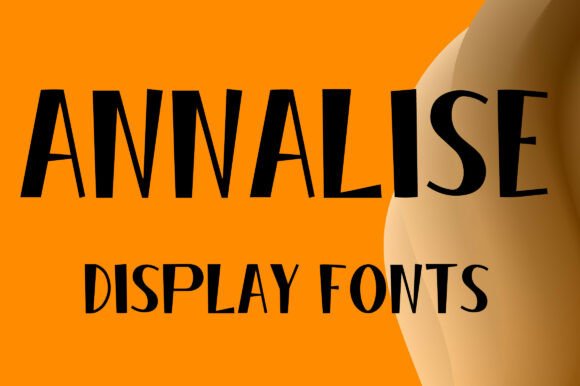
I still remember the frustration of working on a project, hours spent perfecting every detail, only to be held back by one thing: the font. I was designing a bold poster for a fashion brand, and I needed a font that would make a statement. That’s when I stumbled upon Annalise, a bold display font that would change the game.
First Impressions: What I Love About Annalise
Annalise is a bold display font with a tall condensed style and strong modern character. Its uppercase letterforms feature sharp tapered strokes, clean geometric structure, and elegant high-contrast shapes that create a striking, stylish, and memorable look.
- ✨ Perfect for bold statements: Annalise is designed to make a statement, and it does so with confidence. Its bold and condensed style makes it perfect for headlines, posters, and social media graphics.
- ✅ Clean and geometric structure: The font’s clean structure and elegant high-contrast shapes give it a sophisticated and modern look that’s perfect for branding and packaging.
- 🎉 Uppercase letters A-Z and numbers 0-9: Annalise is designed with uppercase letters A-Z and numbers 0-9, making it perfect for creating bold and eye-catching text.
The Not-So-Perfect: Small Quirks and Limitations
While Annalise is an amazing font, it’s not without its quirks. Here are a few things to keep in mind:
- 🤔 Limited character set: Annalise only includes uppercase letters A-Z and numbers 0-9, which might limit its use for body text or longer paragraphs.
- ⚠️ Not suitable for small text: Due to its bold and condensed style, Annalise might not be the best choice for small text or captions.
The Story Behind Annalise
Annalise was designed with the modern designer in mind. Its creator wanted to create a font that would make a bold statement and add a touch of sophistication to any design project. With its clean geometric structure and elegant high-contrast shapes, Annalise is the perfect font for designers who want to make a statement.
| What is Annalise? | Annalise is a bold display font with a tall condensed style and strong modern character. |
| What is Annalise perfect for? | Annalise is perfect for branding, posters, packaging, logos, headlines, and social media graphics that need a bold and sophisticated statement. |
| Can I use Annalise for body text? | No, Annalise is not suitable for body text due to its bold and condensed style. It’s best used for headlines and titles. |